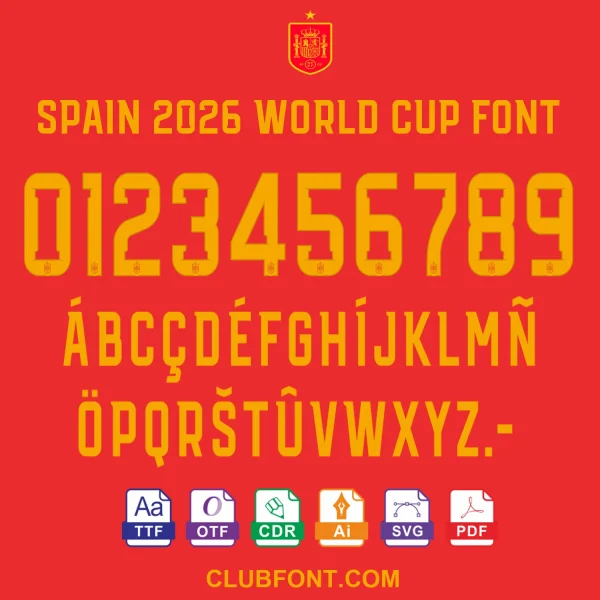
Are you ready to bring the passion of Spanish football to your creative projects? Whether you are customizing your own jersey, designing fan banners, or creating unique merchandise for the 2026 World Cup, our Spain 2026 World Cup Font is the ultimate typographic asset you need.
Meticulously crafted to match the authentic lettering style seen on official kits, this font package provides everything you need to achieve a 100% professional finish. From die-hard La Furia Roja supporters to professional graphic designers, this font ensures your work stands out from the crowd.
This font isn’t just for digital typing—it’s designed for real-world application. Here are just a few ways you can use your Spain 2026 World Cup Font:
- Jersey Customization: Print player names and numbers on t-shirts, hoodies, and authentic soccer jerseys using heat transfer vinyl (HTV) or direct-to-garment (DTG) printing.
- DIY Fan Merchandise: Create custom mugs, phone cases, car decals, and posters to show your support during the 2026 tournament.
- Professional Quality: Created with precision to mirror official sports lettering standards.
The excitement for the 2026 FIFA World Cup is building, and Spanish fans worldwide are gearing up to cheer for their team. Don’t settle for generic fonts when you can have the real deal.